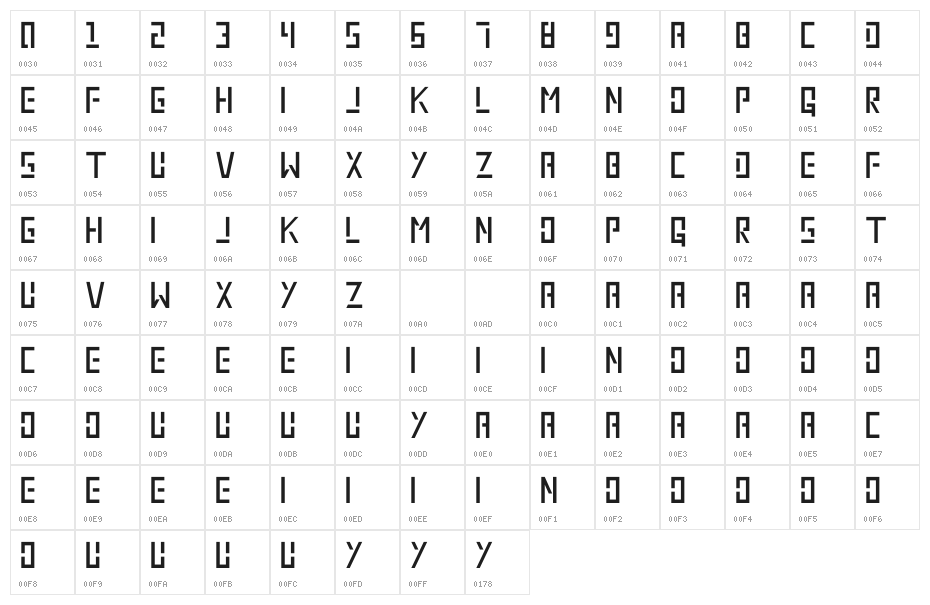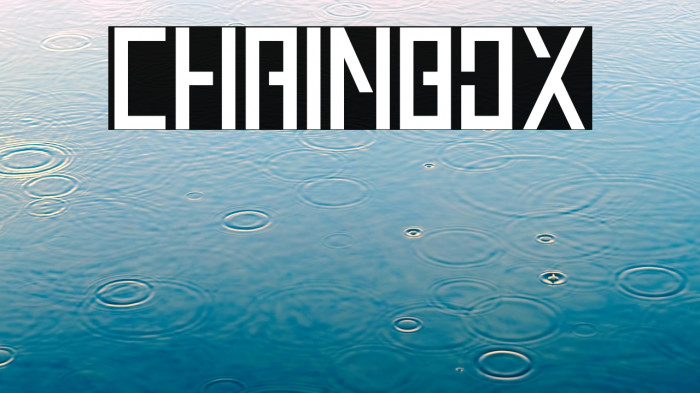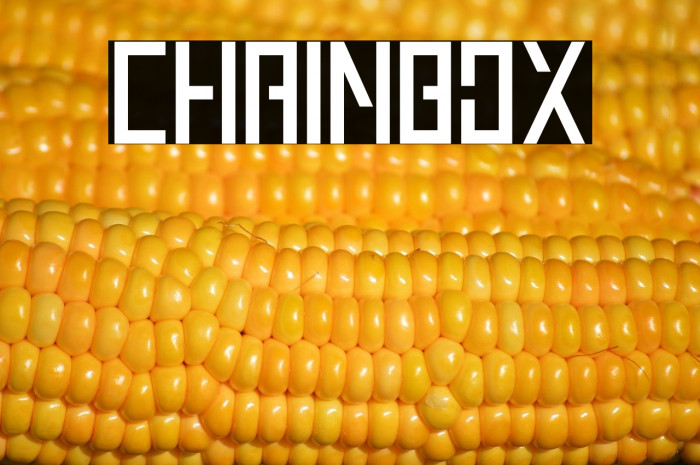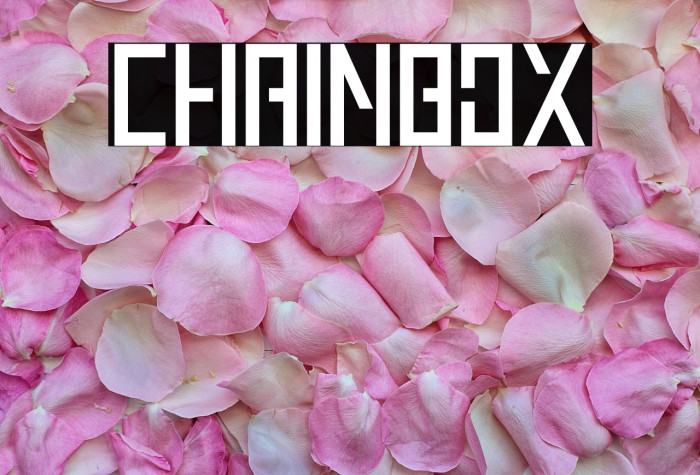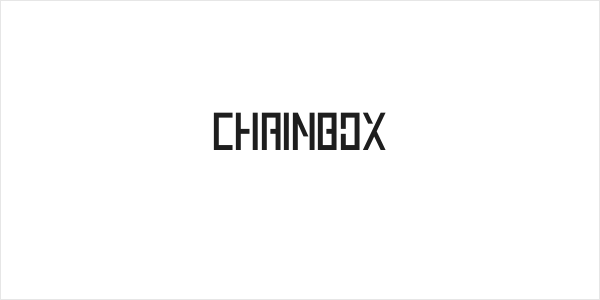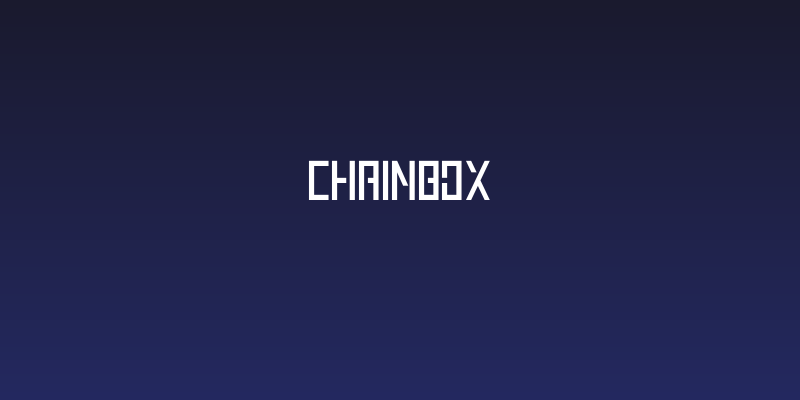
Chainbox Font
Chainbox Description
This font features a bold, geometric design with a modern and futuristic aesthetic. The characters are constructed with straight lines and sharp angles, creating a sense of precision and structure. The uppercase letters are uniform in height and width, giving a cohesive look across the alphabet. The numerals and special characters maintain the same geometric style, ensuring consistency throughout. The overall appearance is striking and impactful, making it suitable for projects that require a strong visual presence.
| Use Case | Logos, Headlines, Posters |
| Proposed Projects | Ideal for technology branding, futuristic posters, video game titles, and sci-fi themed designs. |